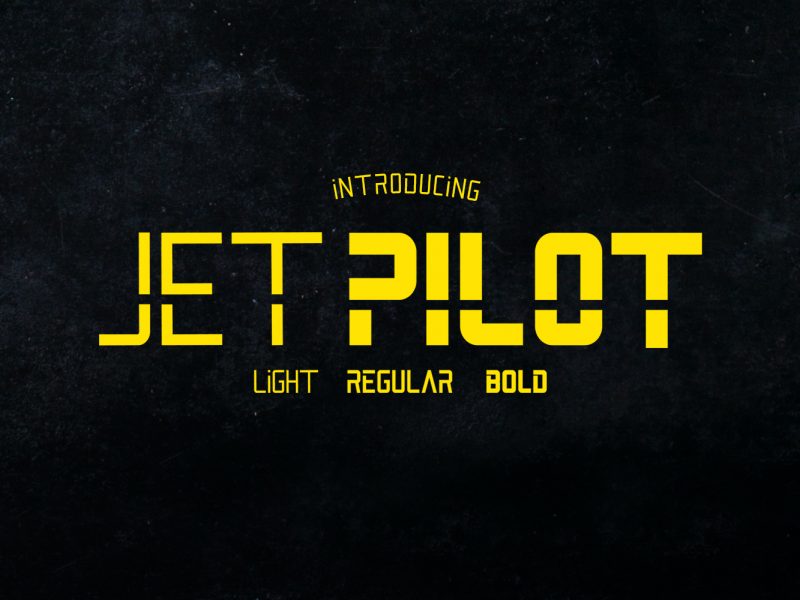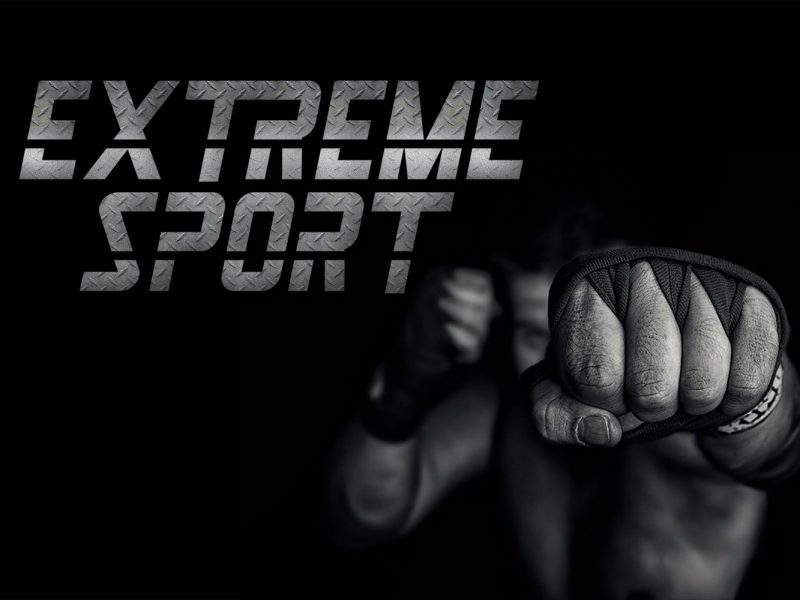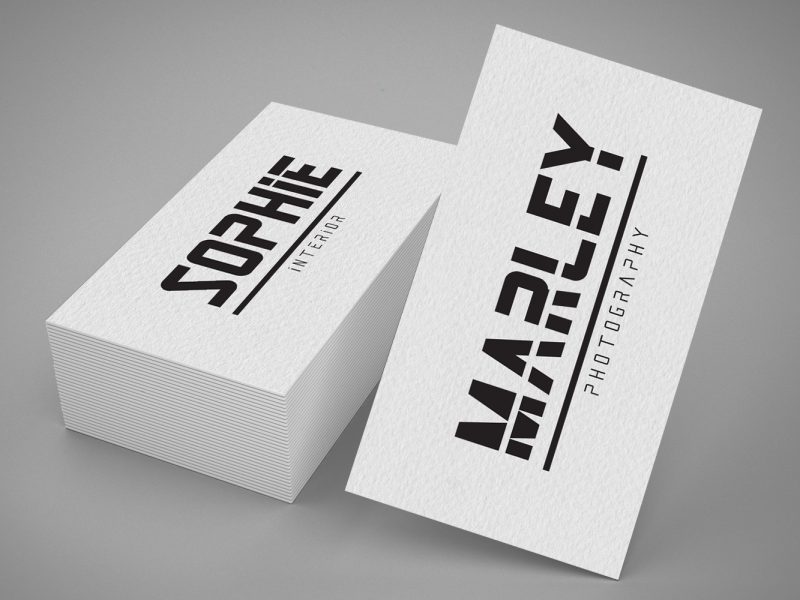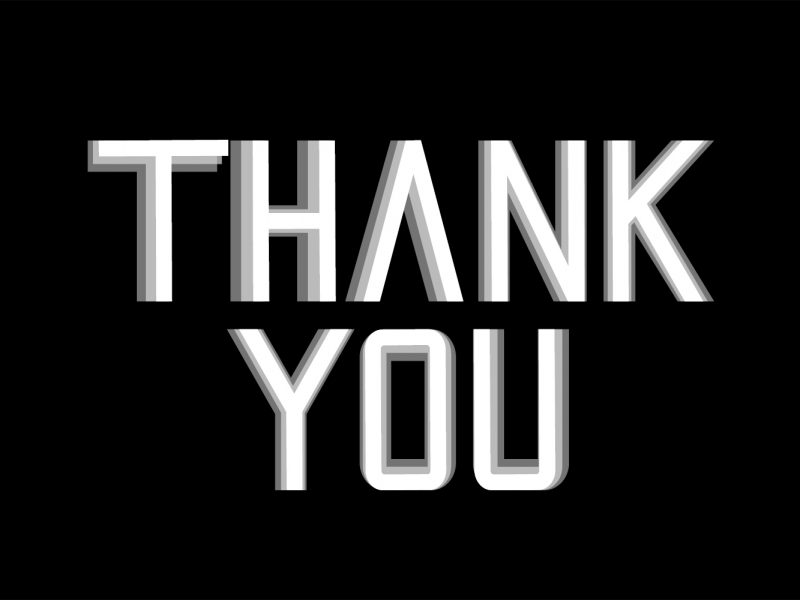
Jet Pilot Font
Hello I’m really excited to introduce, Jet Pilot is a modern minimalist typeface. It has all caps and comes with 3 variations Light, Regular and Bold. This font suitable to create any project design.